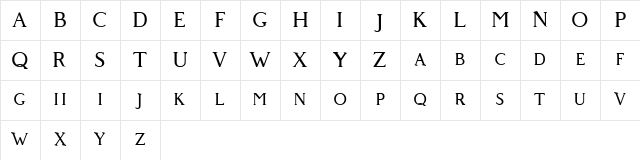
Giveny Free is a composed and adaptable typeface that performs quietly and consistently across a wide range of design contexts.
Pro Tip: Use Giveny Free in both headline and body roles to test its range before committing to a single application.